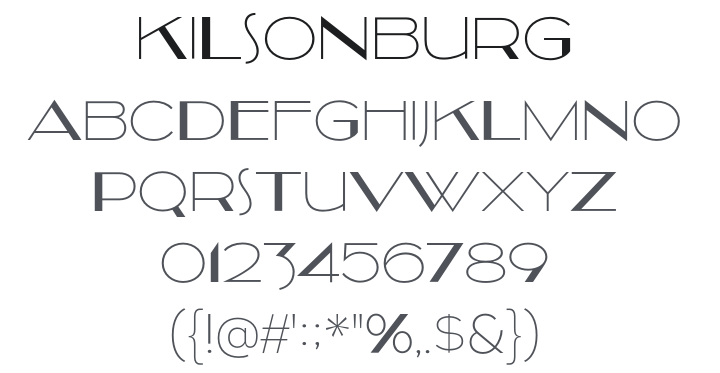
Kilsonburg Font
About Kilsonburg
Kilsonburg is a geometric Art Deco titling typeface inspired by early 20th-century Vogue magazine covers — light, minimal letterforms with inventive, unconventional stroke contrasts that break the usual thick/thin rules of the genre. The result feels simultaneously vintage and refreshingly modern. Perfect for fashion branding, luxury editorial, high-end packaging, magazine mastheads, and any headline that needs sophisticated, effortlessly elegant glamour.